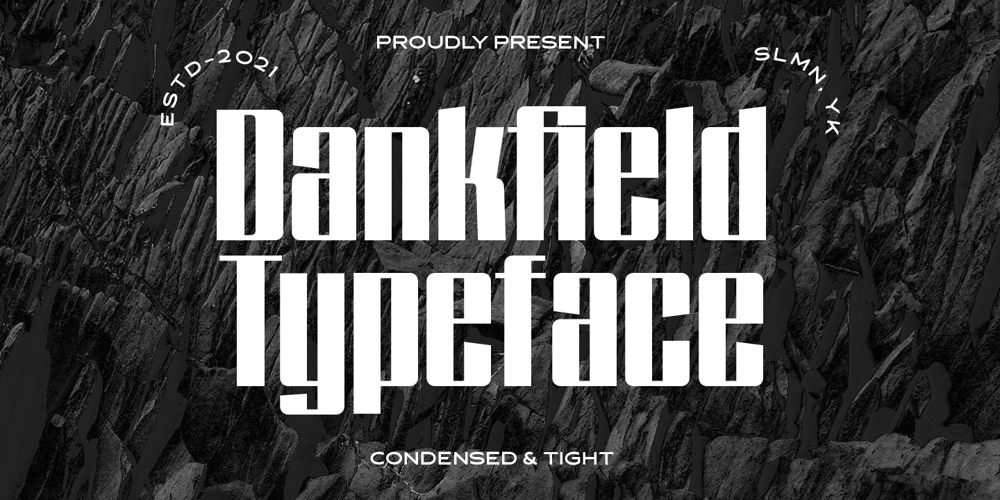
Dankfield
Dankfield font
Dankfield Font Family was designed by Hendry Juanda and published by Letterhend. Dankfield contains 4 styles and family package options. Introducing, Dankfield. A modern display typeface with high contrast and condensed style, very suitable for futuristic and techno theme. This font perfectly made to be applied especially in logo, and the other various formal forms such as invitations, labels, magazines, books, greeting / wedding cards, packaging, fashion, make up, stationery, novels, labels or any type of advertising purpose.Features : Uppercase & lowercase (alternates) Numbers and punctuation Stylistic alternates multilingual PUA encoded We highly recommend using a program that supports OpenType features and Glyphs panels like many of Adobe apps and Corel Draw, so you can see and access all Glyph variations.